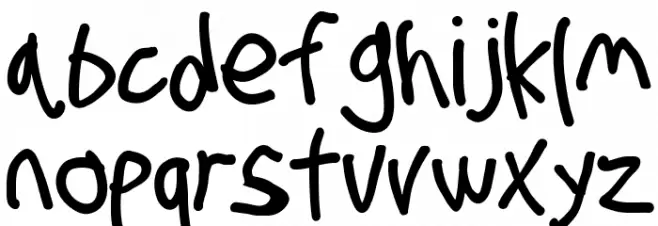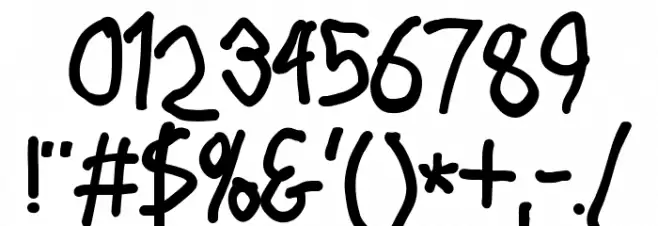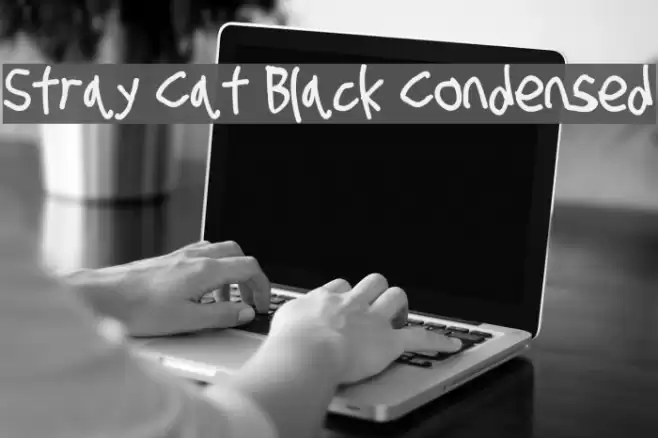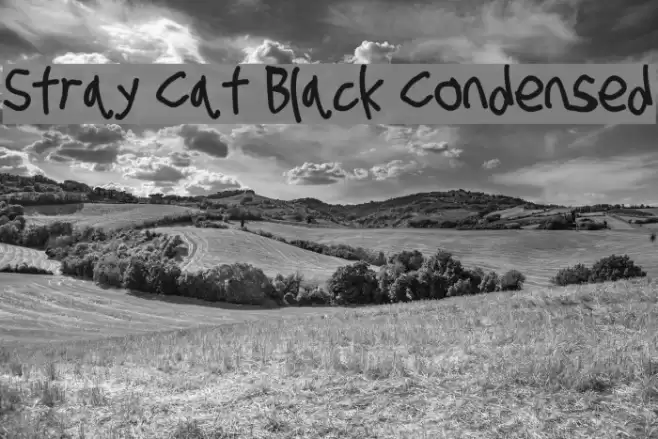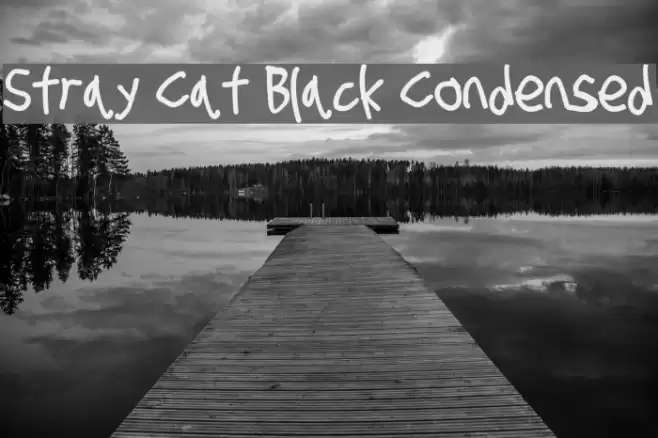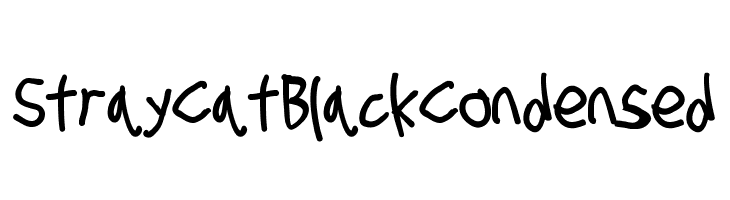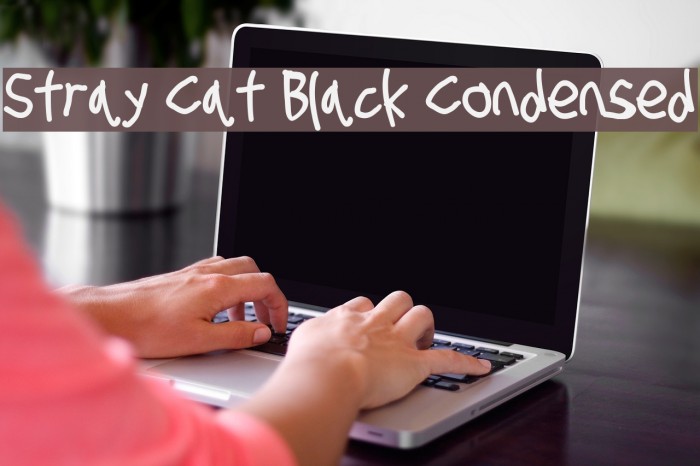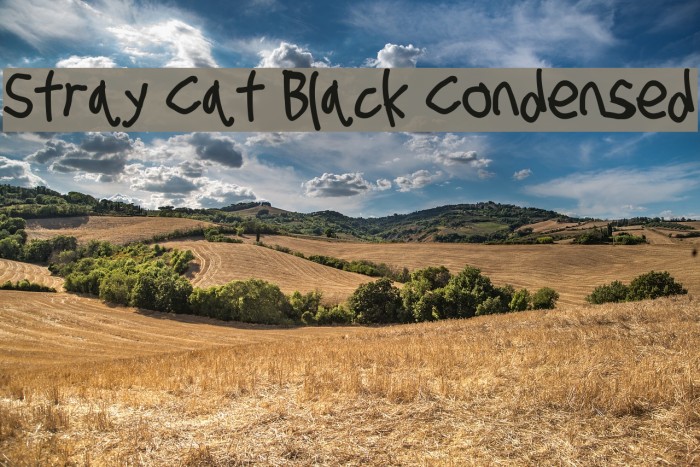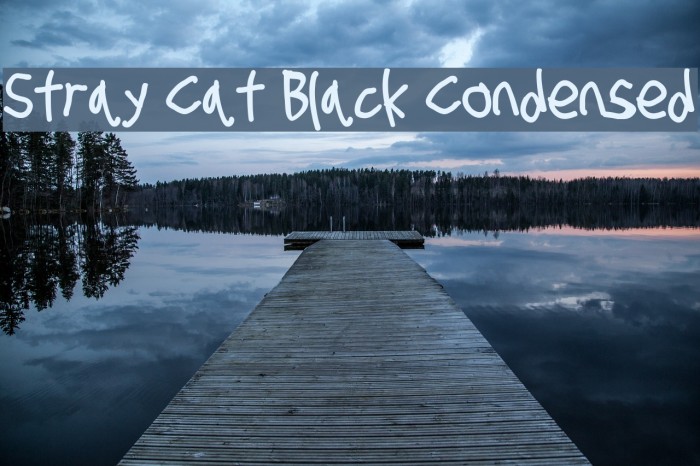
Stray Cat Black Condensed
This font features a playful and informal handwritten style, characterized by its bold and condensed letterforms. The strokes are uneven and slightly irregular, giving it a casual and spontaneous appearance. The uppercase and lowercase letters maintain a consistent style, with rounded edges and a slightly slanted orientation. Numbers and special characters are designed to match the overall aesthetic, contributing to its cohesive look. The font's unique charm makes it suitable for projects that require a personal touch or a creative flair.
A bold, condensed handwritten font with a playful and informal style.
- Proposed Projects: Ideal for greeting cards, children's books, casual branding, and creative posters.
- Width: Condensed
- Overall Style: Casual and playful
- Use Case: Headlines, Informal text, Creative projects